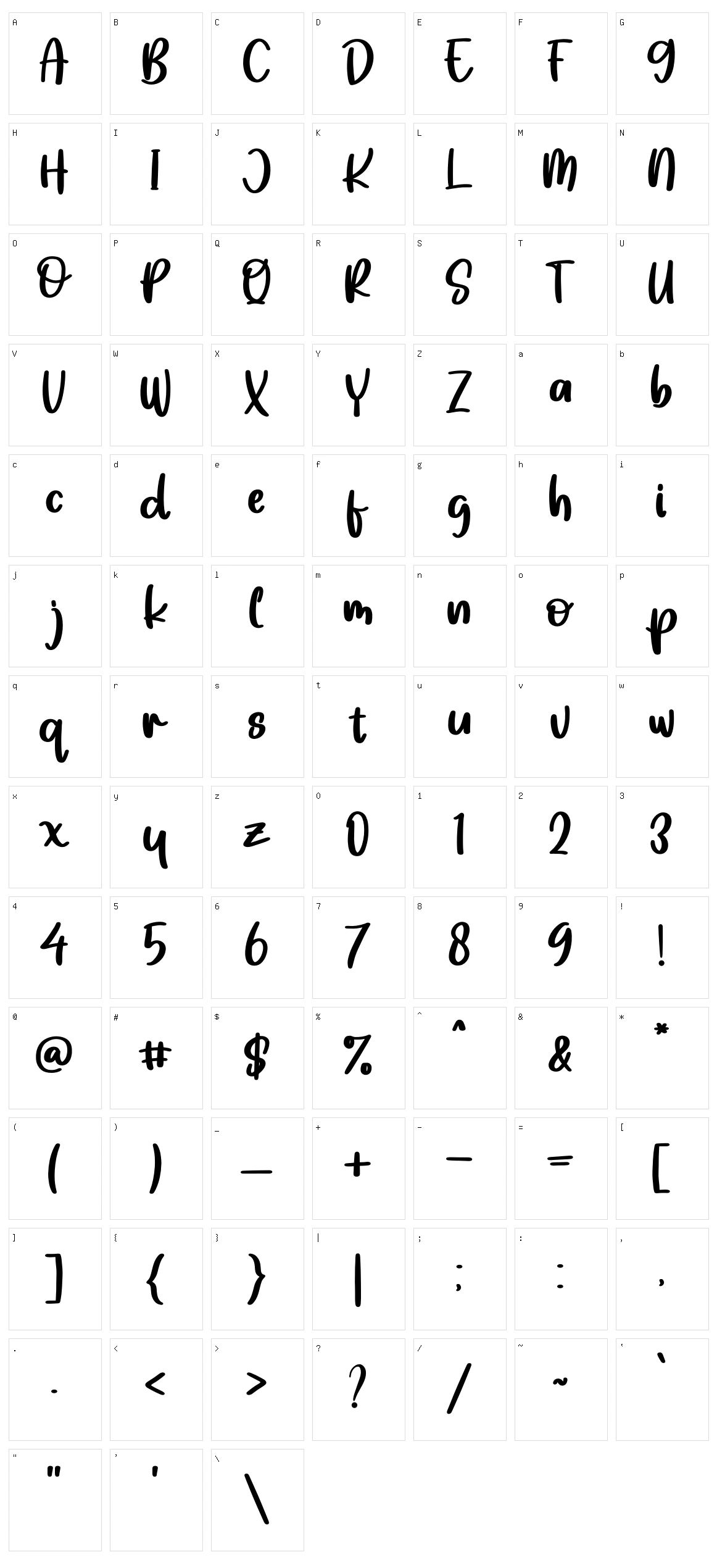
The free font Monkey Funky is carefully designed by Integritype Studio, showcasing a thoughtful balance of creativity and usability and falls under the Script font style. When you download the ZIP file, it contains only 37.89 KB of font files, making it lightweight and quick to download. Please review the license details below to understand permitted usage and distribution rights. If license information is not available, we recommend using this font for personal projects only or contacting the author directly for commercial usage permissions.